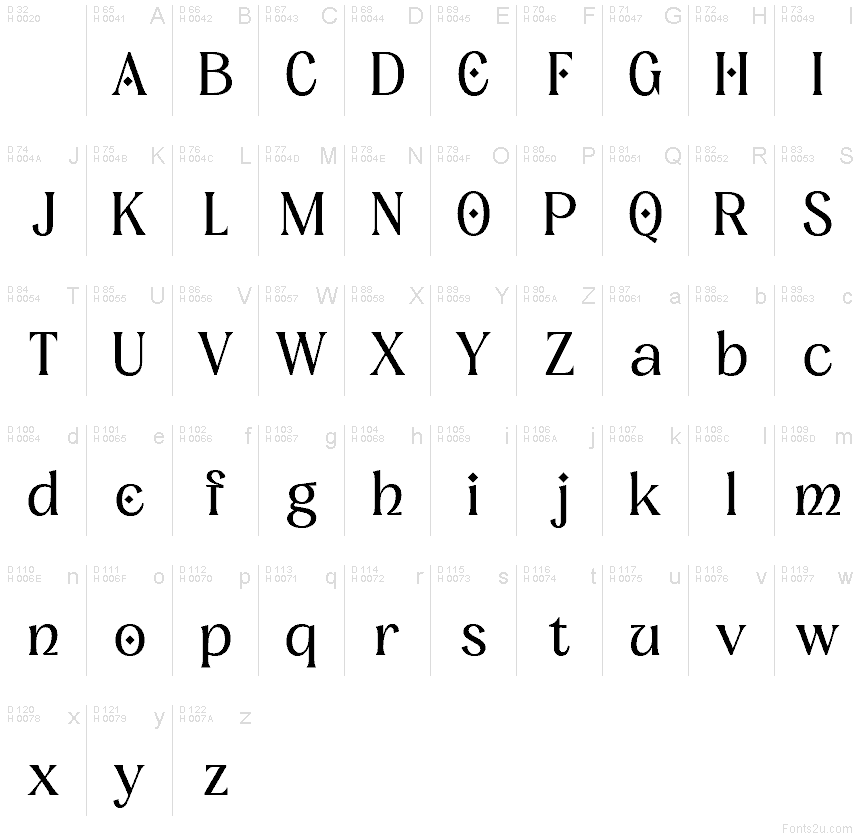
CS Ravella Regular Demo
CS Ravella font by Craft Supply Co. is a free vintage serif font. It stands out with chiseled wedge serifs and crisp, faceted counters that feel hand-cut—elegant without turning fussy. The strokes swing from fine hairlines to inky stems, giving headlines a carved, tactile snap while keeping letterforms readable and well-spaced.
Using CS Ravella, you get drama with control—great for wine labels, boutique logos, book jackets, cafe menus, editorial headers, and event posters. The rhythm is tight and upright, so titles hold together cleanly at large sizes; add a touch of tracking for smaller subheads. This free font pairs beautifully with a quiet, neutral sans to let its vintage detailing shine.